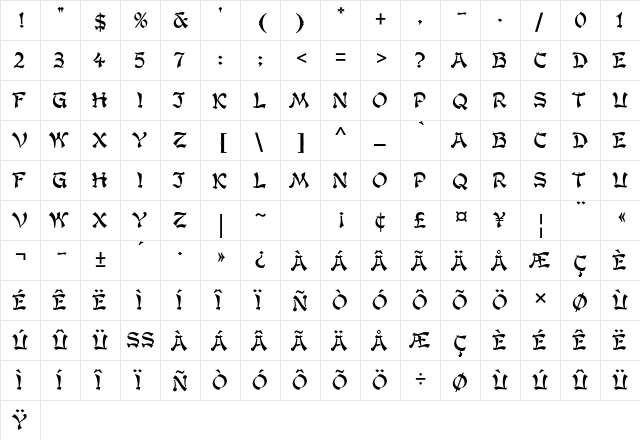
Kanban Std Regular
| Designer | Ed Bugg |
Design Context for Kanban Std Typeface
Kanban Std is a composed and adaptable typeface that performs quietly and consistently across a wide range of design contexts.